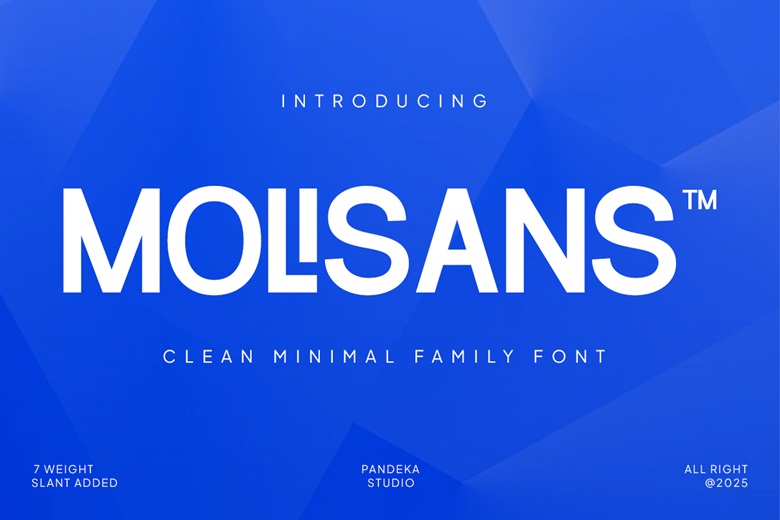
Molisans Font Family
Molisans is a contemporary and clean geometrically precise and minimalist sans serif font family. Perfect in branding, corporate design, online interfaces, editorial layouts, etc. Molisans provides light, heaviness and ageless professionalism in any weight. Its unobtrusive and white letterforms generate a confident presentation and written quality.
Molisans Sans Serif Font Family